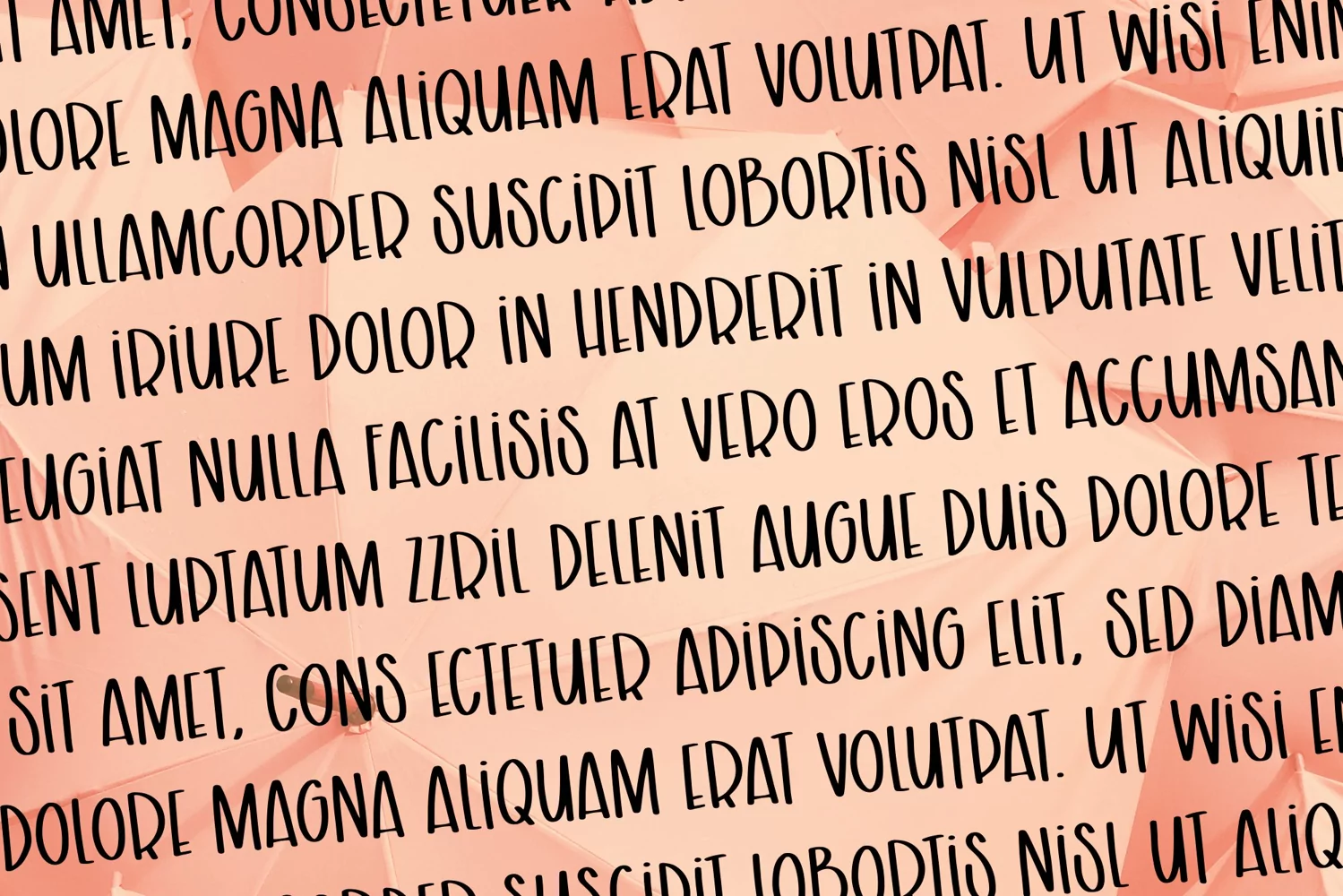
Backyard Bouquet is a breezy hand-lettered caps font. Mix and match caps and lowercase letters to create a hand-lettered look in your designs.
It has language support for Western European languages.